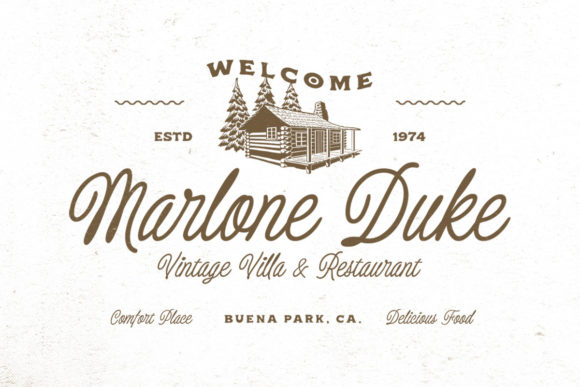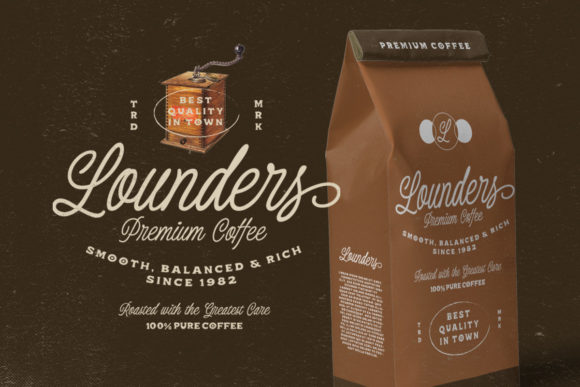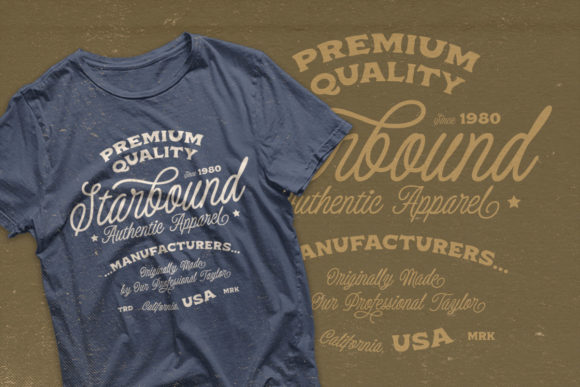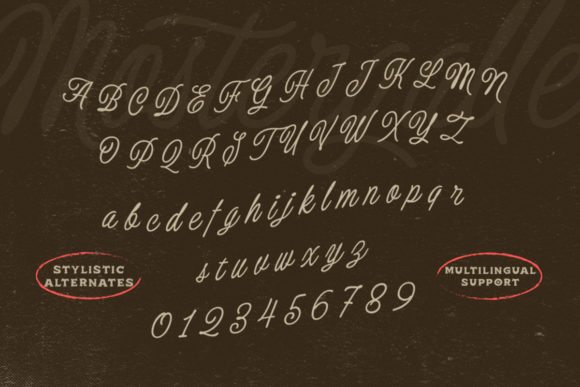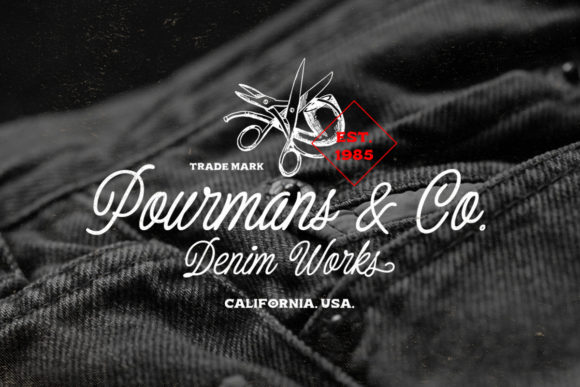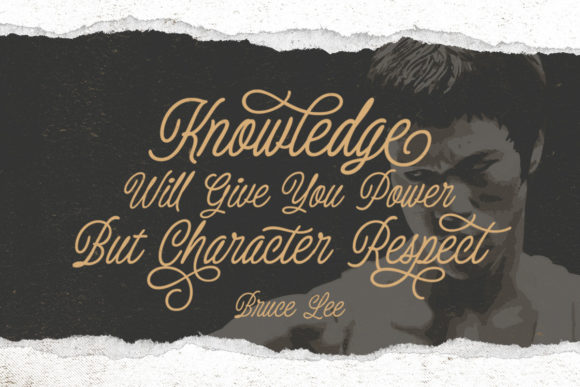
Introduction to Mostergalle Font
As a designer, there’s nothing quite like the thrill of finding the perfect font to bring your creative project to life. It’s that moment when the words start flowing, and the design begins to take shape. For me, that moment happened when I stumbled upon the enchanting Mostergalle Font. Its vintage charm and smooth curves instantly captivated me, and I knew I had to learn more.
With its versatility and timeless appeal, the Mostergalle Font is a valuable addition to any designer’s toolkit. Whether you’re working on a fashion branding project or an editorial design, this beautiful script font is sure to elevate your work to the next level. Its transparent background and high-quality design make it a standout resource for creative professionals looking to add a touch of sophistication to their designs.
Key Features of Mostergalle Font
- High-quality, unique design with a transparent background, making it a valuable design resource for creative projects.
- Optimized for use at high resolutions, ensuring crisp and clear typography in both print and digital applications.
- Designed to be versatile, with a range of styles and weights that can be used in a variety of creative contexts.
- Features a modern aesthetic, with clean lines and a minimalist feel that makes it perfect for use in logos, branding, and other design projects.
Honest Review: Mostergalle Font
- ✨ High-quality design that’s perfect for a variety of creative projects
- ✨ Wide range of font styles that can be used for various design purposes
However, I did encounter a few limitations while working with the Mostergalle Font. One of the main issues I faced was the lack of flexibility when it comes to font size and style. It’s not as customizable as some of the other fonts I’ve worked with, which can be a bit restrictive for more complex design projects.
- ⚠️ Limited font size and style options
- ⚠️ Not suitable for more complex design projects
Overall, I would say that the Mostergalle Font is a solid addition to any designer’s toolkit, but it’s not without its limitations. If you’re working on a simple design project, it’s definitely worth considering. However, if you’re looking for something more versatile, you may want to look elsewhere.
Tips for Getting the Most Out of Mostergalle Font
To get the most out of the Mostergalle Font, experiment with different font sizes, colors, and styles to create visually appealing designs. You can also combine the font with other design elements, such as images or shapes, to create unique and eye-catching graphics.
The Mostergalle Font is ideal for a variety of creative projects, including:
- Logo creation
Alternatives to Mostergalle Font
Alex Brush Font is a beautiful, elegant script font perfect for creative projects that require a touch of sophistication. It features a transparent background, making it ideal for use on dark or textured backgrounds. This font is ideal for wedding invitations, greeting cards, and other design projects that require a high level of elegance.
Compared to Mostergalle Font, Alex Brush Font has a more refined and delicate look, making it suitable for projects that require a more subtle approach.